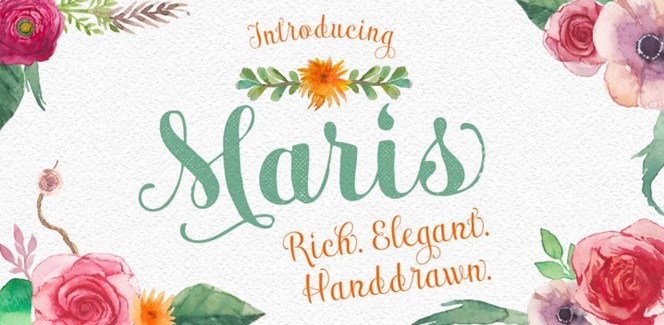
Maris
Maris is a contemporary font family which is as finer example of the always fashionable style of the handwritten calligraphy as you can get. When trying to describe it we feel we should use so many epithets – fancy, elegant, vintage, feminine, artistic, friendly, cute, informal, pleasant, etc. Whatever we say about the unique look of this fully-connected display typeface will not be enough. But perhaps the greatest advantage of Maris typeface is the large variety of the versions and weights provided which will allow the users to use all their imagination while creating having virtually no limits. Other great features that have to be mentioned are the great legibility which is not that common in this kind of typefaces and the beautiful ribbon-like swashes and doodles. All in all, this font family is perfect for logos, headlines, packaging, wedding invitations, greeting cards, labels, etc.
As we mentioned above the versions and weights provided are among the greatest advantages of Maris. There are several very interesting versions which differ depending on their texture like halftones, jean, wood, print, rough and normal. Each version is supplied in 6 weights – from Thin thru Medium to Black with each next one bolder than the previous but all equally impressive. Also, for even more choices and diversity, there are a few very useful OpenType features provided with which the users could do their project truly unique. Among them are contextual, swash and stylistic alternates, ligatures, as well as extended language support for 72 languages.
Maris font family is designed by the prolific US designer Jeremy Dooley and is released by his insigne type foundry. We will let Jeremy’s work speak for itself: